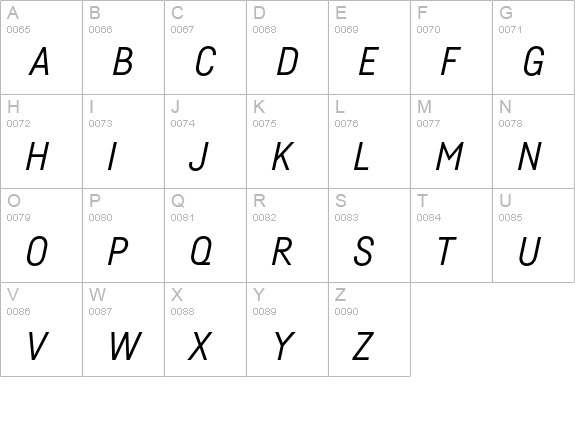
Fabrikat Italic is a distinctive, italic variant in the Fabrikat typeface family \xE2\x80\x94 well suited to design and typography projects.
Fabrikat Italic font exudes elegance and sophistication with its sleek design and graceful curves. Its italicized style adds a touch of flair and modernity to any design project. This font is perfect for creating stylish headings, branding materials, and editorial layouts. What sets Fabrikat Italic apart is that it is not only visually appealing but also free to download. You can easily access this versatile font at FontsMarket.com, making it a valuable addition to your font collection without any cost. Embrace the beauty and versatility of Fabrikat Italic font in your creative projects today.